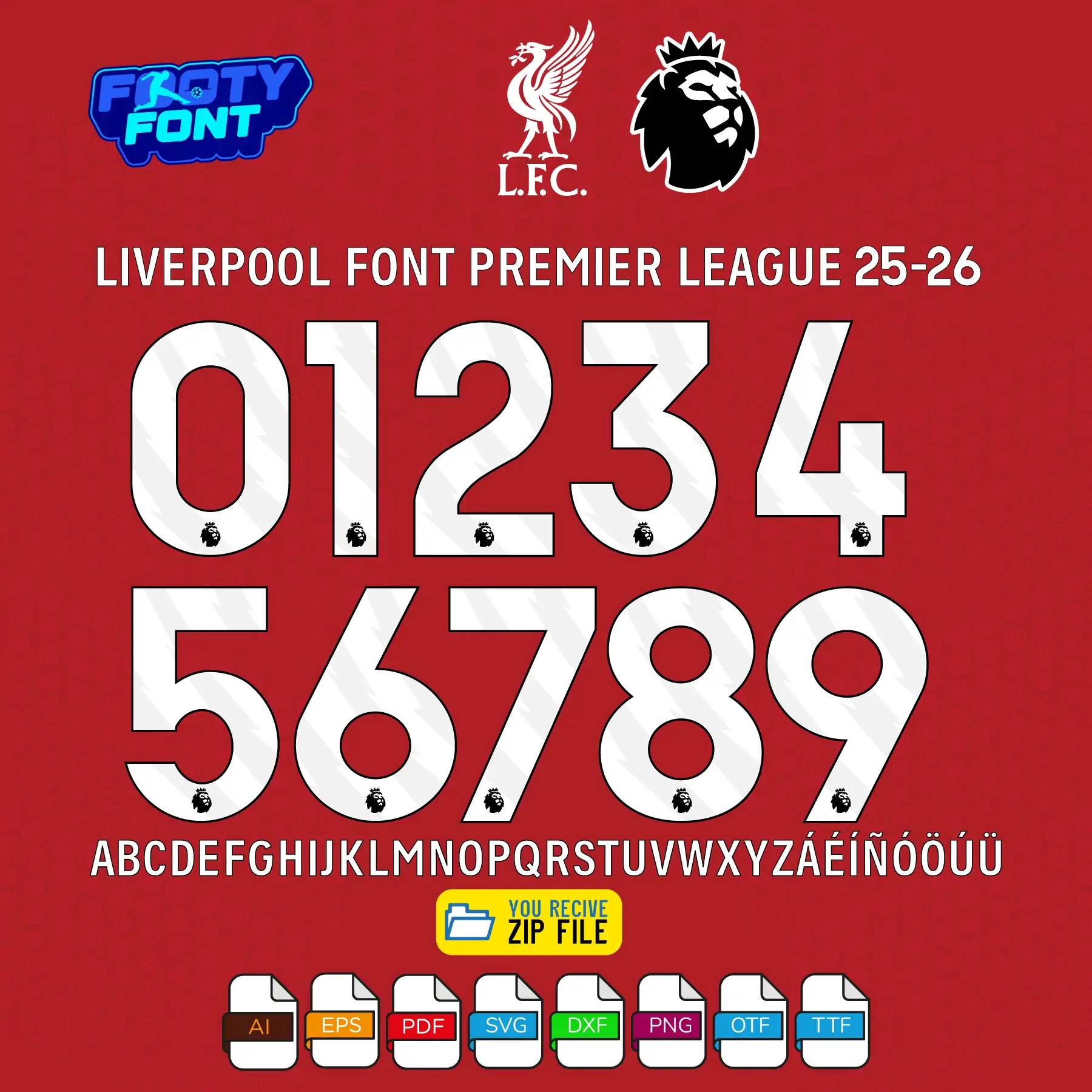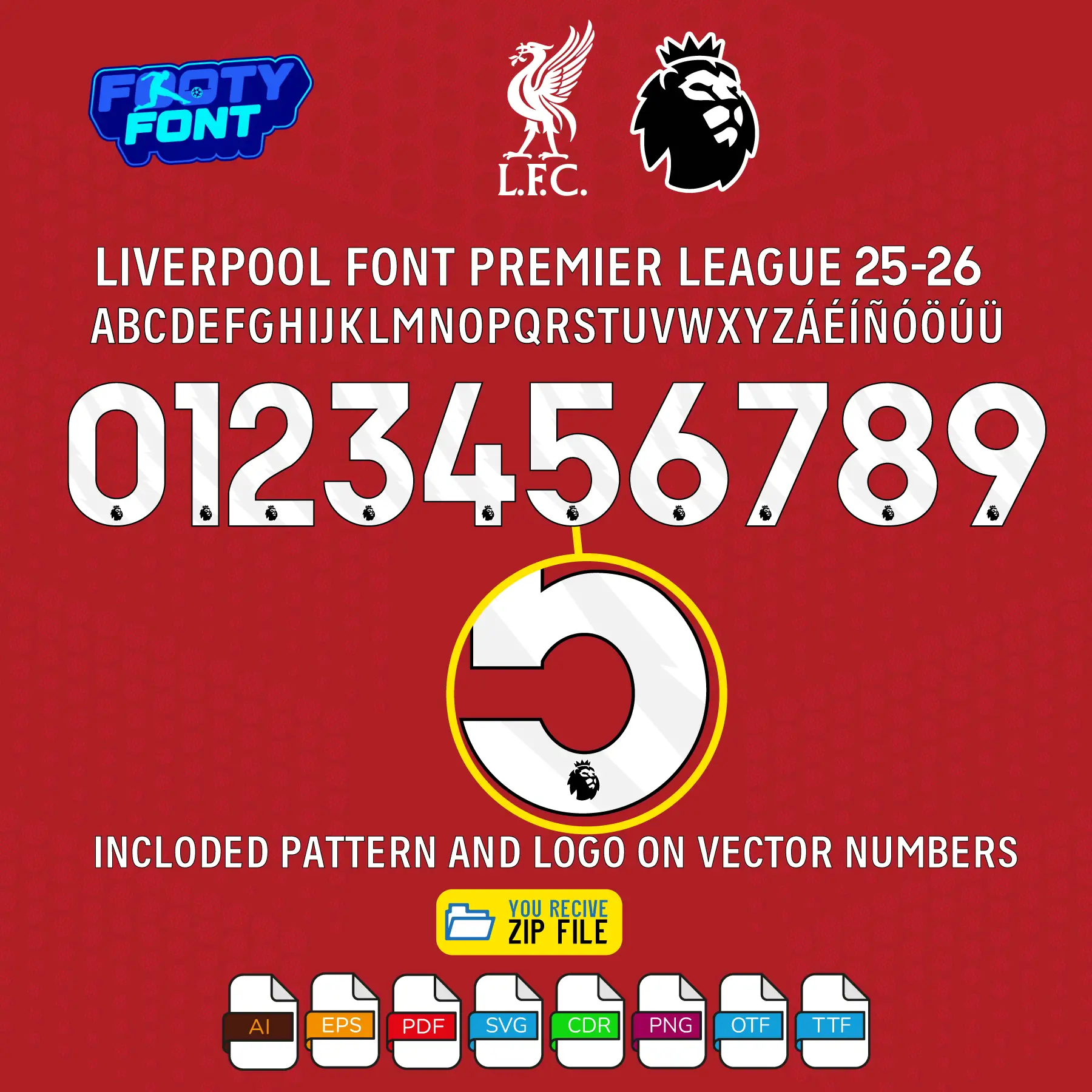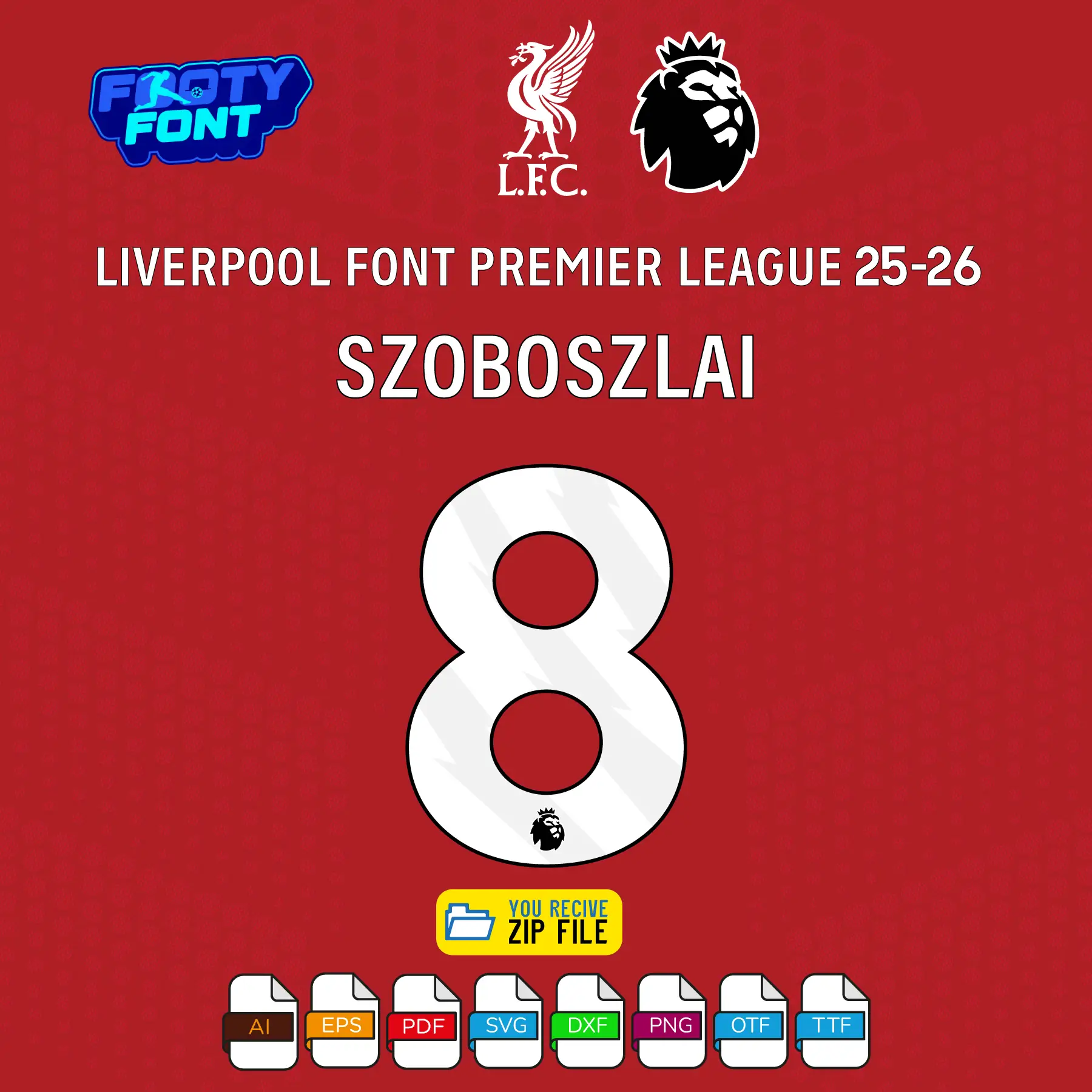
Liverpool 2025-2026 Football Font
Bring the unmatched passion of Anfield to your designs with this font, inspired by the Liverpool 2025-2026 Premier League kit. This is a high-quality typeface designed to replicate the official Premier League style lettering and numbering worn by the Reds as they battle for domestic glory.
This font captures the elite style worn by Liverpool heroes like captain Virgil van Dijk, Dominik szoboszlai, and Luis Díaz. It is an absolute must-have for fans creating custom jersey designs, digital art, or matchday posters that celebrate their unwavering support for one of the most historic clubs in world football.
Liverpool Font Premier League 2025-2026 showing the complete alphabet and white numbers for the home kit.